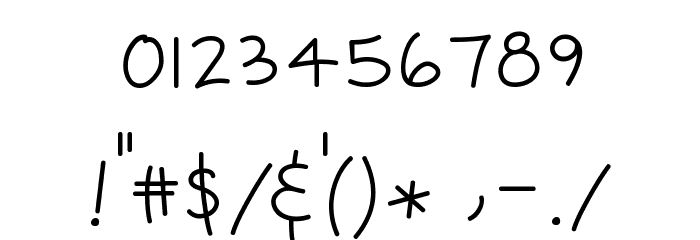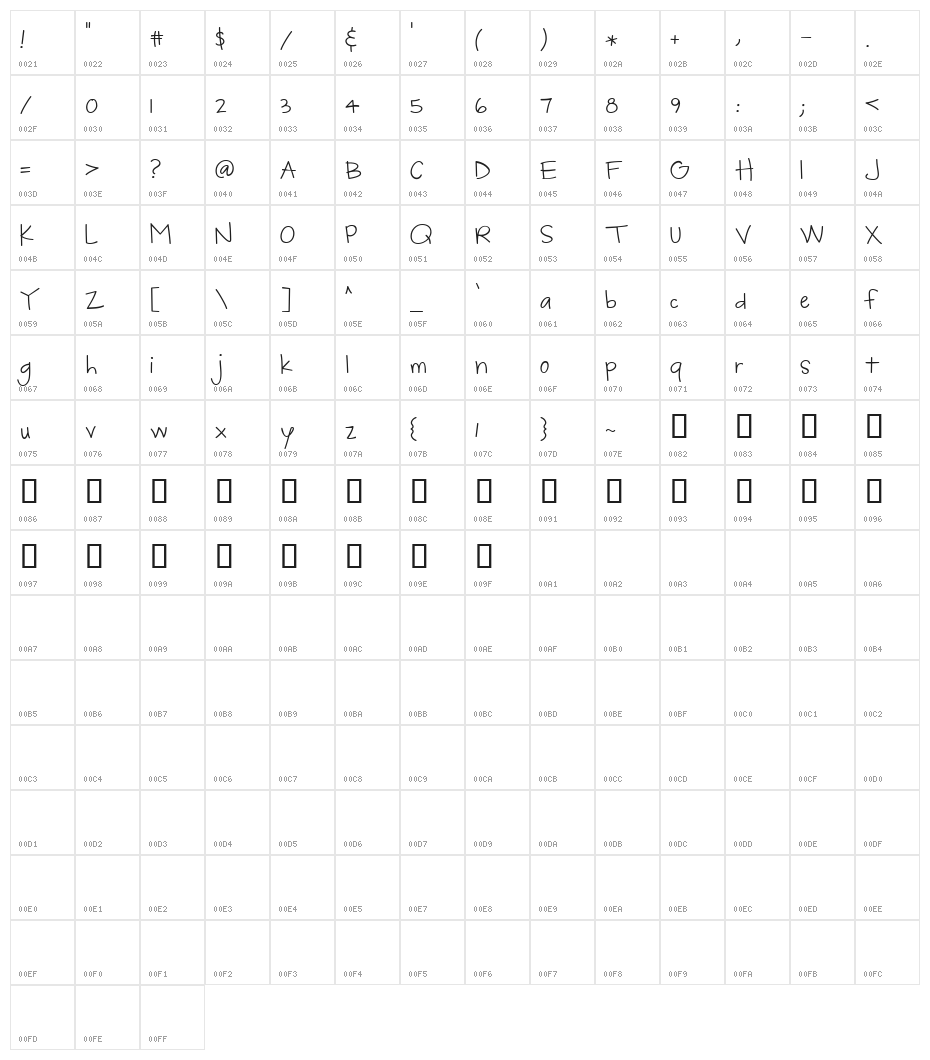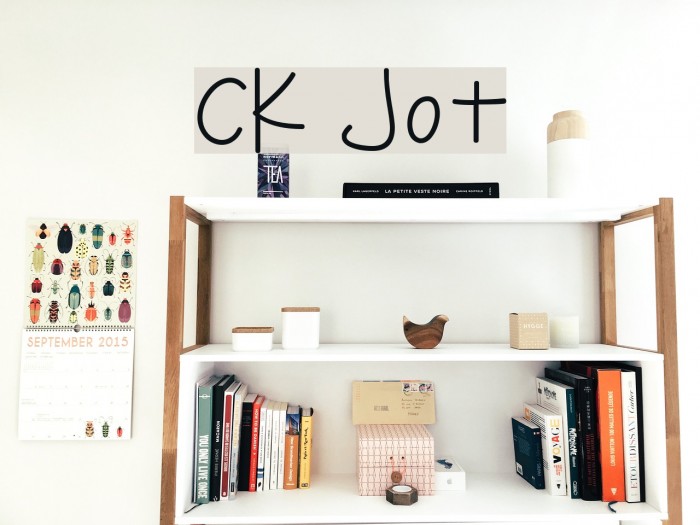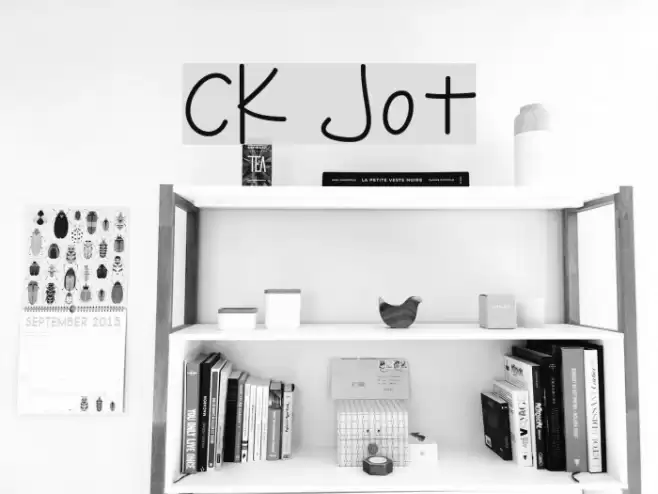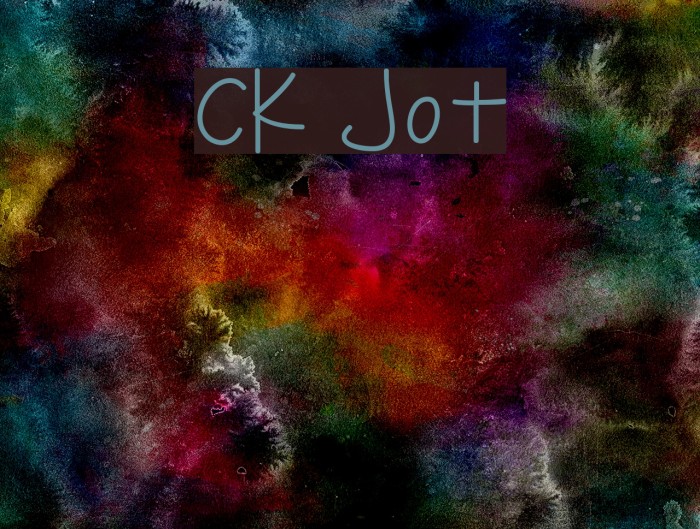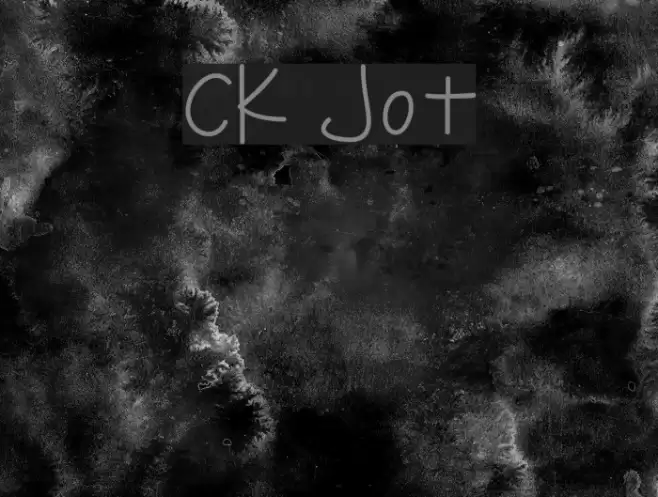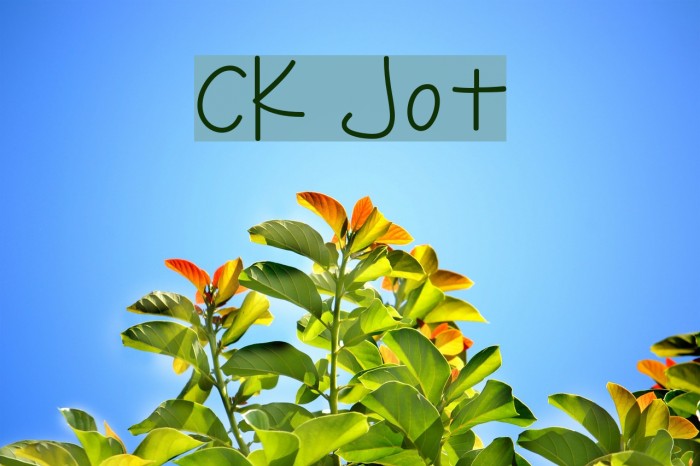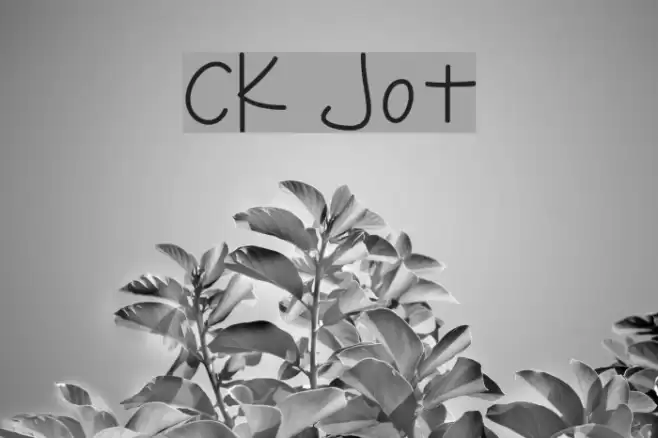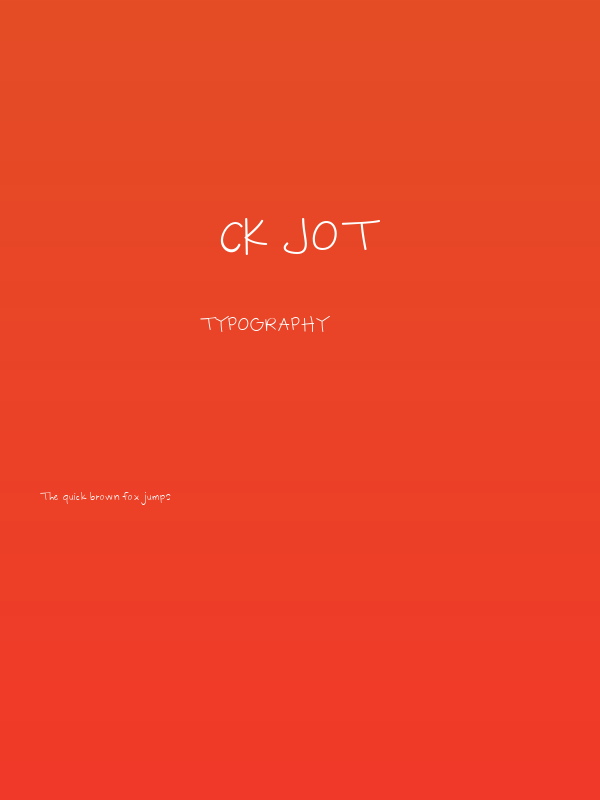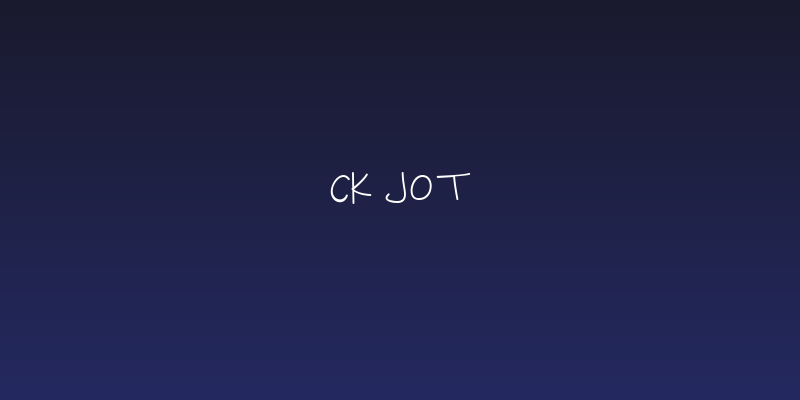
CK Jot Font
CK Jot Description
This playful and casual handwritten font exudes a sense of informality and friendliness. The characters are slightly irregular, with a natural flow that mimics the look of handwriting. The strokes are consistent in thickness, giving it a uniform appearance while maintaining a relaxed and approachable vibe. The uppercase letters are slightly taller than the lowercase, and the numbers are clear and easy to read. Special characters are included, adding versatility to the font's usage. Its simplicity and charm make it suitable for a variety of creative projects.
| Proposed Projects | Ideal for greeting cards, children's books, casual invitations, and personal branding. |